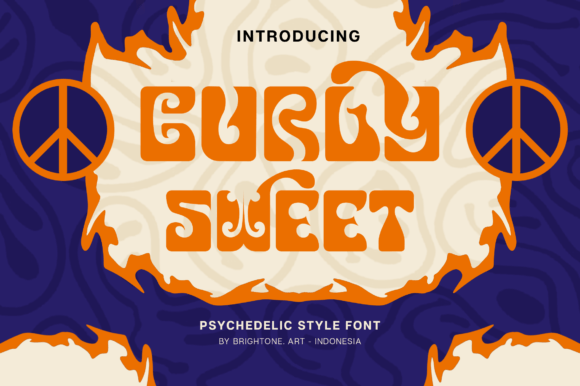
Journey into a world of imagination and creativity with Curly Sweet Font, a psychedelic masterpiece that dances across your designs with its captivating style and unique touch. As a member of the decorative font family, Curly Sweet excels in capturing the essence of comic lettering, bringing life to your creations with its playful and expressive nature.
Dive into a world of limitless possibilities, where Curly Sweet's versatility knows no bounds. Craft eye-catching logos that demand attention, leaving an indelible mark on your audience's minds. Create labels and packaging that ooze personality, transforming ordinary products into objects of desire. Let your stickers sparkle with individuality, adding a touch of whimsy to your everyday communications. And as you embark on branding endeavors, Curly Sweet stands as your trusted companion, ensuring a cohesive and memorable identity across all platforms.
With Curly Sweet, the boundaries of creativity dissolve, making way for a symphony of self-expression. Unleash your inner artist and let your imagination run wild, knowing that this font serves as your faithful ally, translating your visions into tangible works of art. Embrace the extraordinary and redefine the ordinary, for Curly Sweet is more than just a font – it's a gateway to a world where dreams take shape and inspiration flows like an untamed river.
But Curly Sweet's allure extends beyond its aesthetic prowess. It's a font designed with functionality in mind, catering to the needs of modern designers. Encoded with PUA (Private Use Areas), Curly Sweet empowers you with effortless access to a treasure trove of glyphs and swashes, unlocking the full potential of your creative expression.
Welcome Curly Sweet into your design arsenal and watch as your creations transform into captivating masterpieces. Its playful spirit will ignite your imagination, propelling you to new heights of creativity. Embrace the magic of Curly Sweet and let your designs dance off the page, captivating audiences and leaving them spellbound.